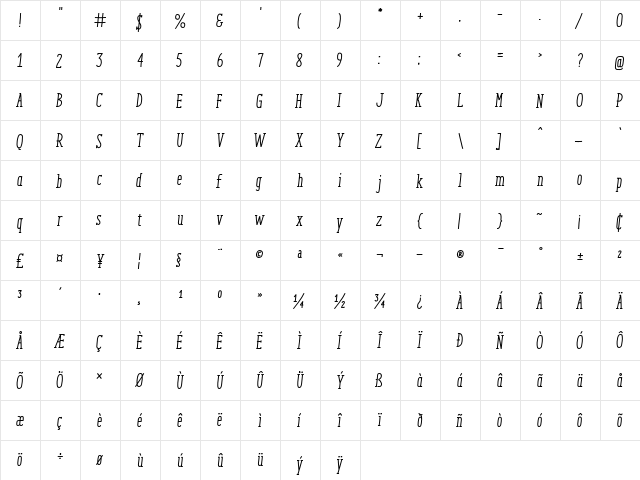
ENYO Serif Medium Italic Medium Italic
| Foundry | Julia Martinez Diana, Antipixel |
| Designer | Julia Martinez Diana, Antipixel |
Design Context for ENYO Serif Medium Italic Typeface
ENYO Serif Medium Italic brings classic typographic sensibility to the table — its serifs and measured letterforms reflect centuries of print heritage. Its italic angle brings a sense of urgency and motion to the letterforms.
Pro Tip: Use ENYO Serif Medium Italic for editorial body copy and considered headline work. Pair with a neutral sans for UI elements or captions to create a classic hierarchy.